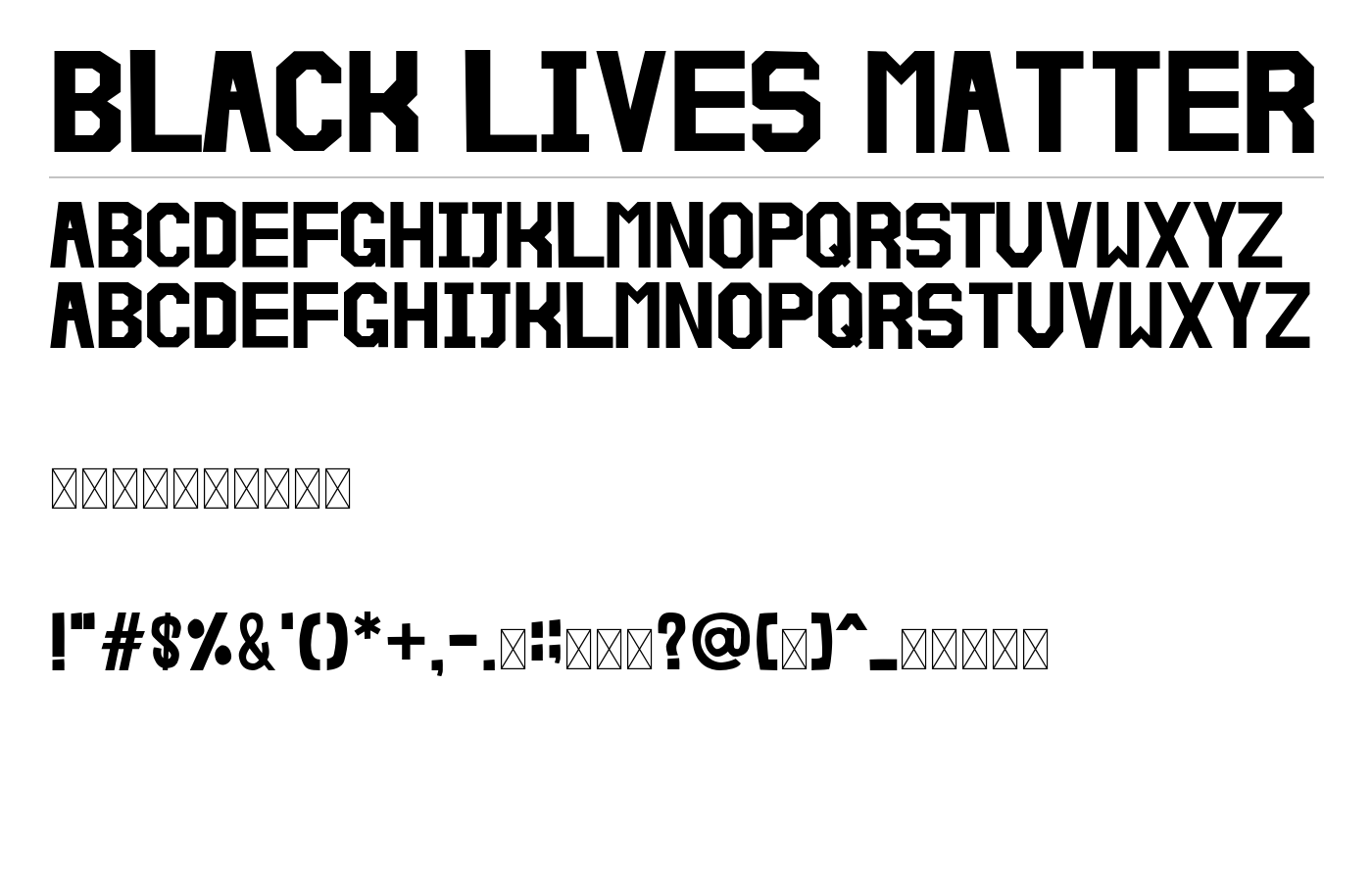
Black Lives Matter Font is a bold, condensed sans serif typeface with strong geometric shapes and sharp edges that command attention. Its tall x-height and uniform stroke weight give it a solid, impactful presence perfect for headlines and statements. This font conveys strength, urgency, and clarity, making it ideal for activism, branding, posters, and any design seeking a powerful, no-nonsense tone.
Black Lives Matter Font
About Black Lives Matter Font
| Font family | Black Lives Matter Font |
| Designer | Activists |